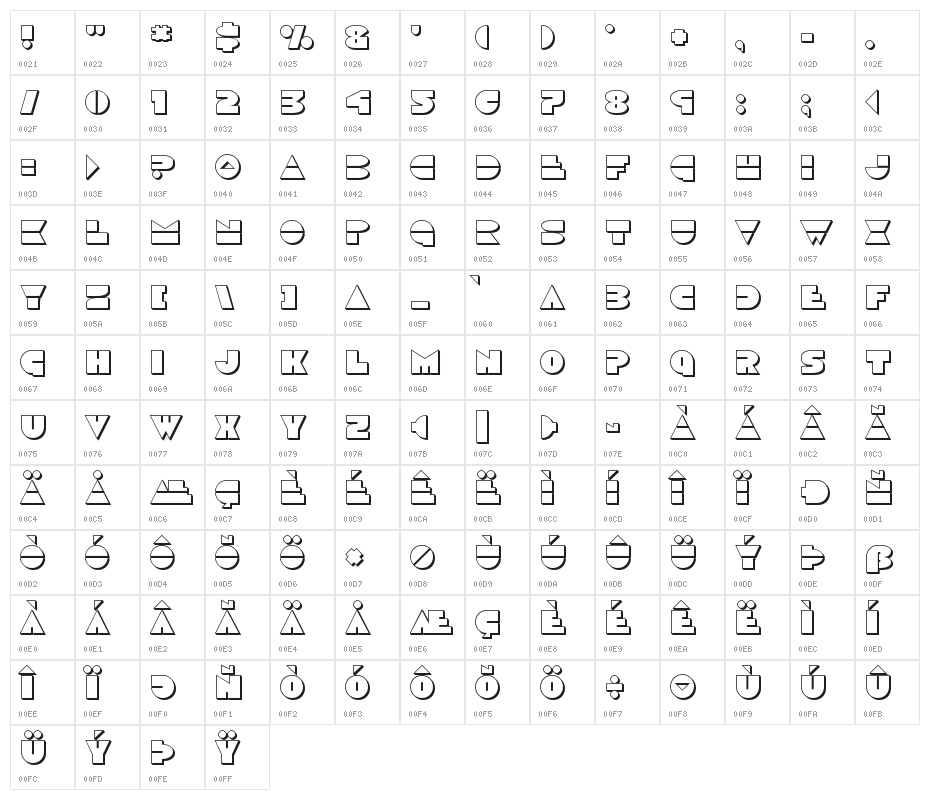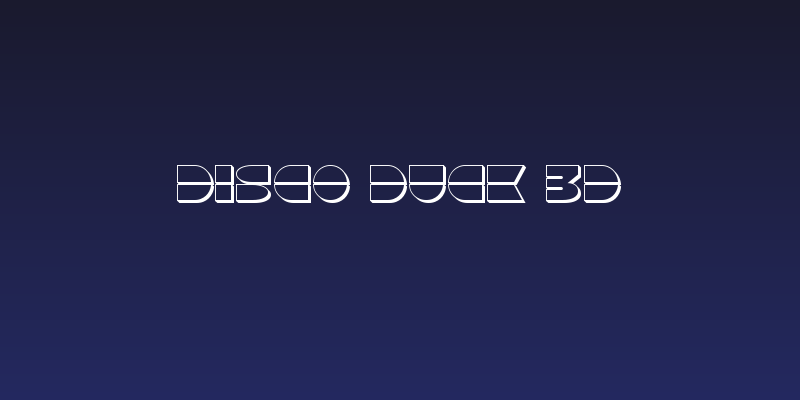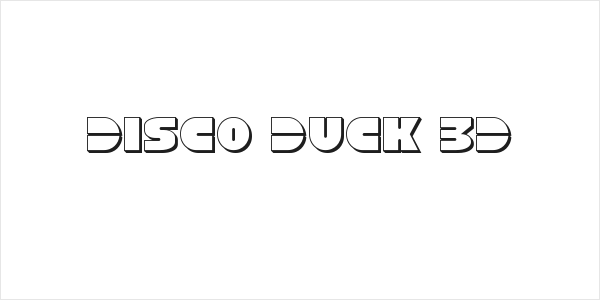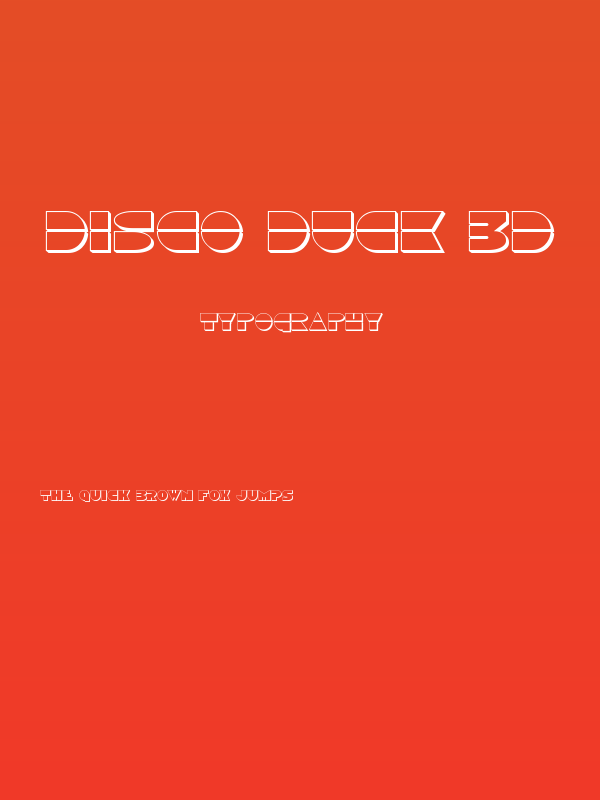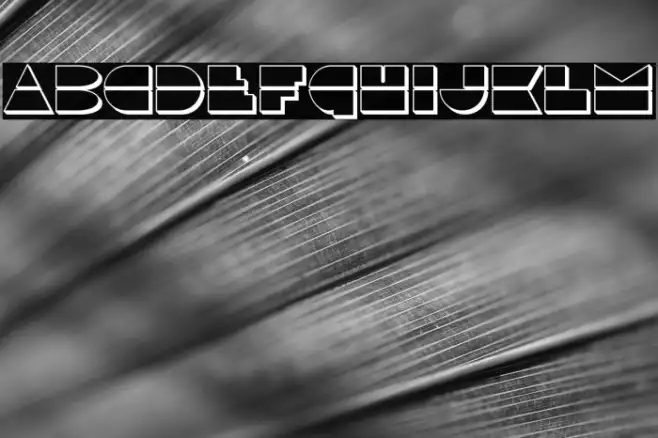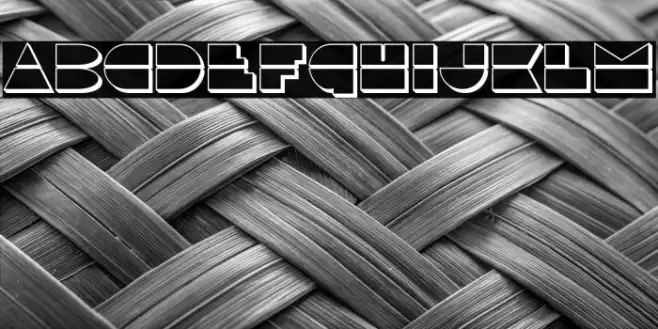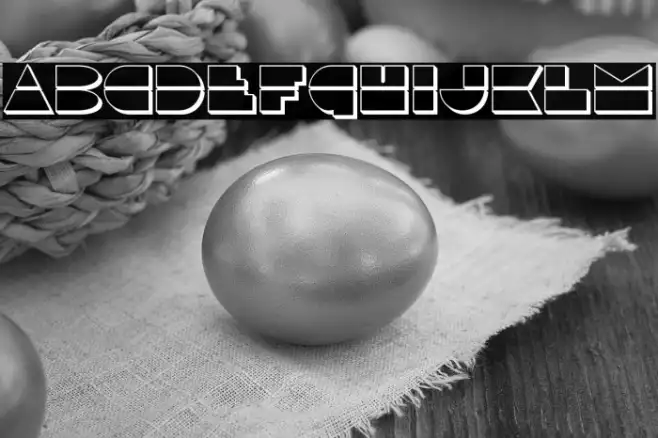
Disco Duck 3D Font
Disco Duck 3D Description
This font features a bold, geometric design with a 3D effect, characterized by thick outlines and a blocky structure. The uppercase letters are stylized with angular and rounded elements, creating a dynamic and futuristic appearance. The numbers and special characters maintain the same bold and structured look, ensuring consistency across all glyphs. The font's unique style makes it stand out, with a playful yet modern aesthetic that captures attention. Its design is reminiscent of retro-futuristic themes, making it suitable for projects that require a distinctive and eye-catching typeface.
| Overall Style | Modern, Retro-Futuristic |
| Proposed Projects | Ideal for posters, album covers, video game titles, and branding that requires a bold statement. |